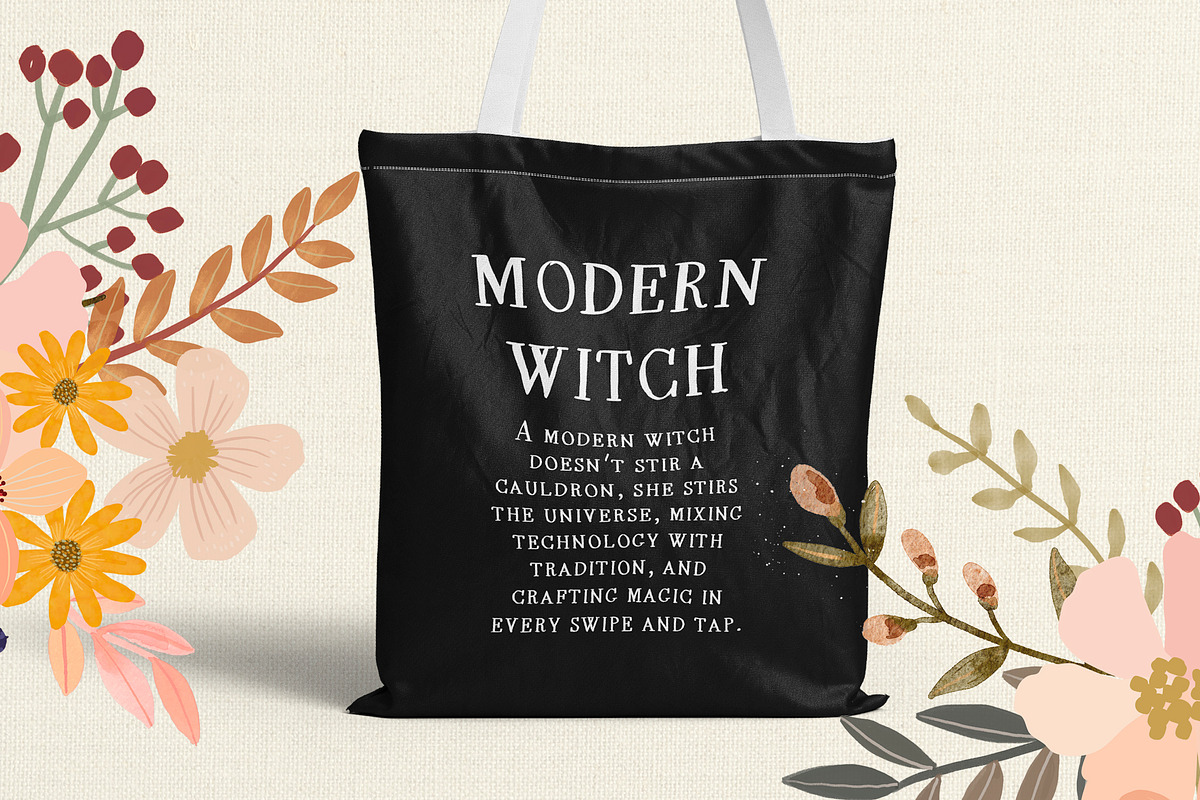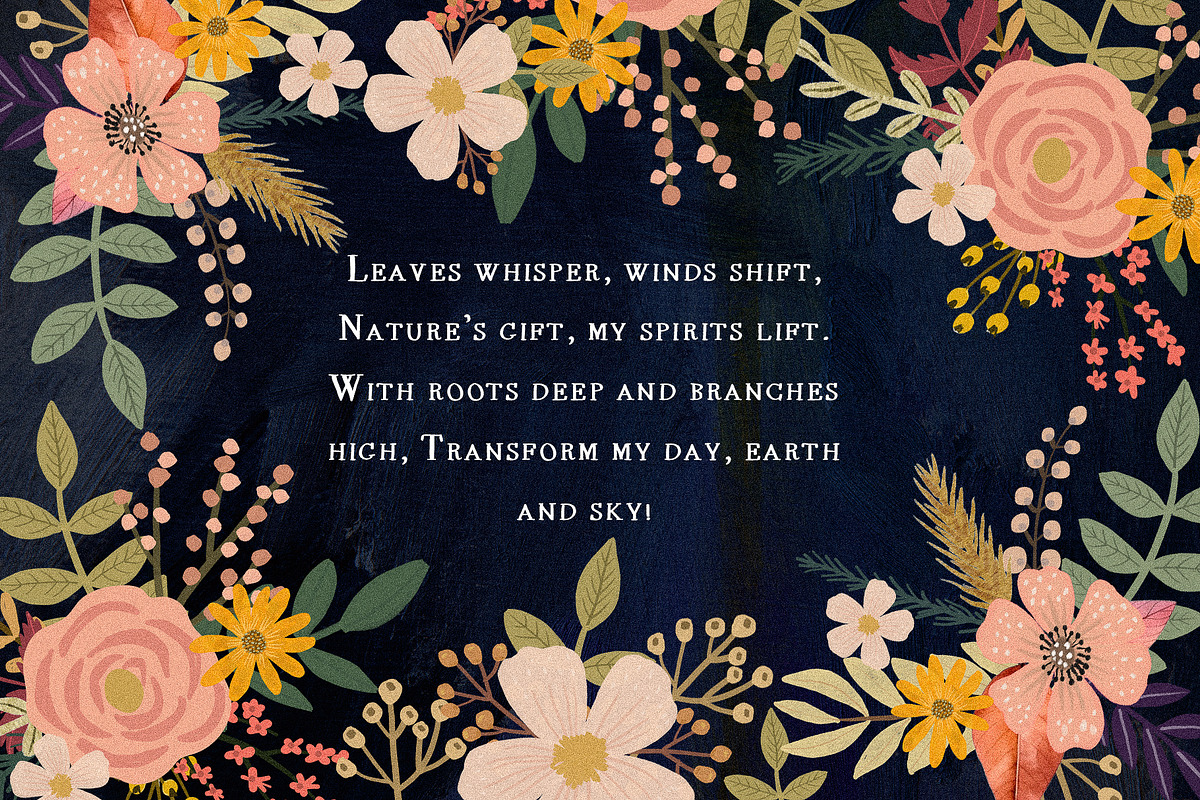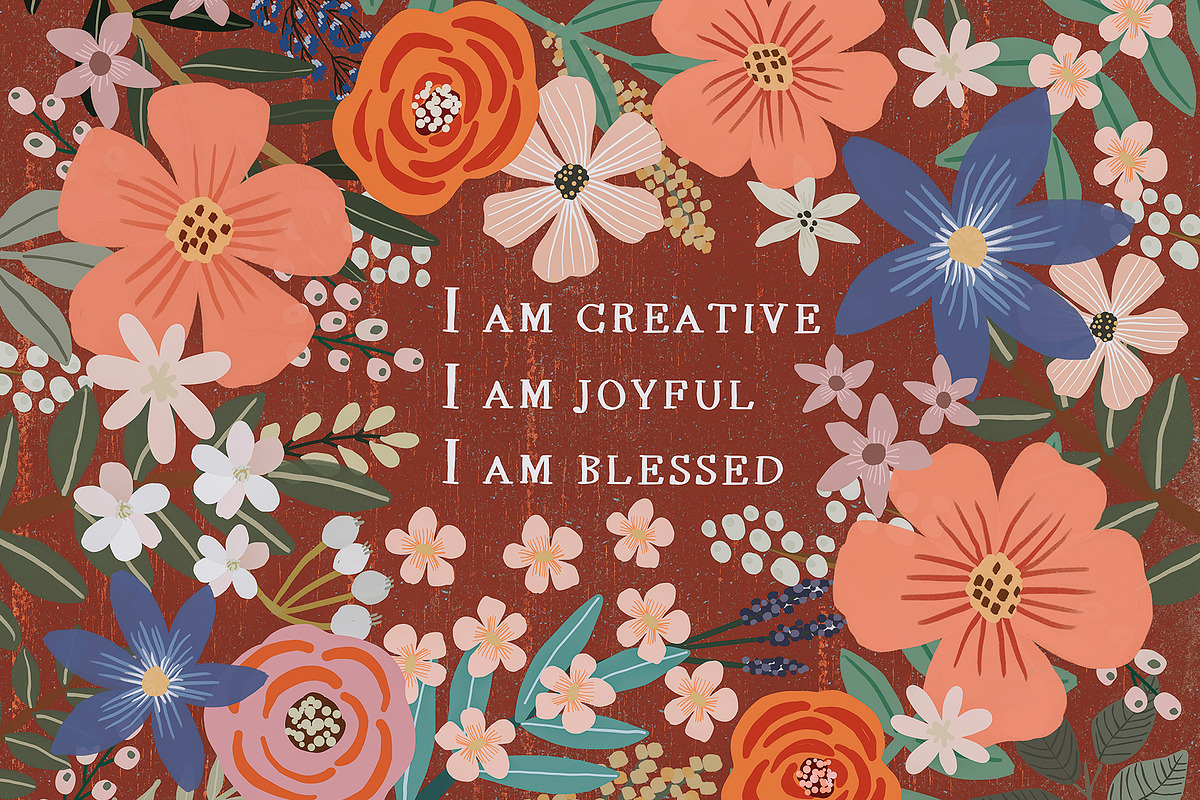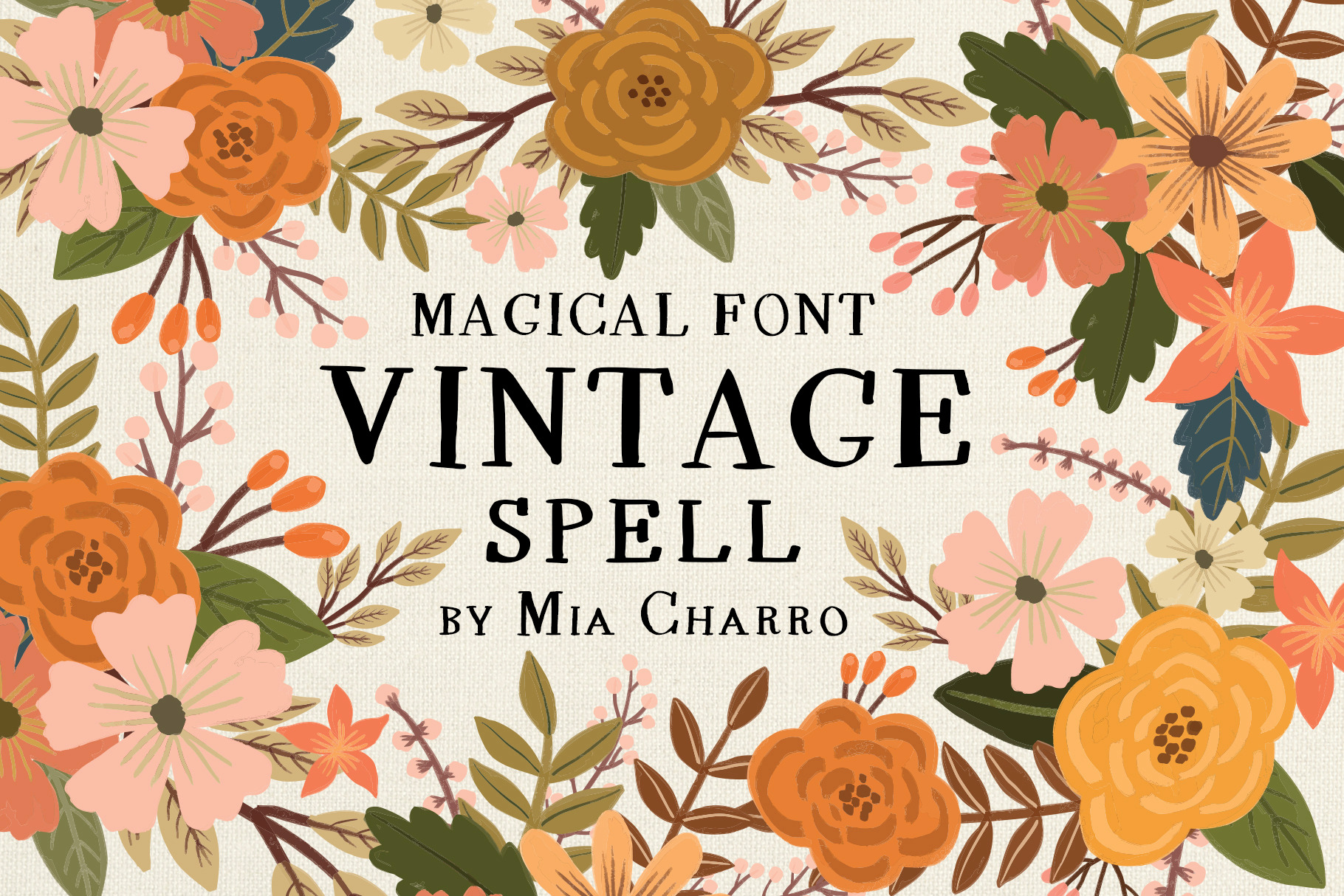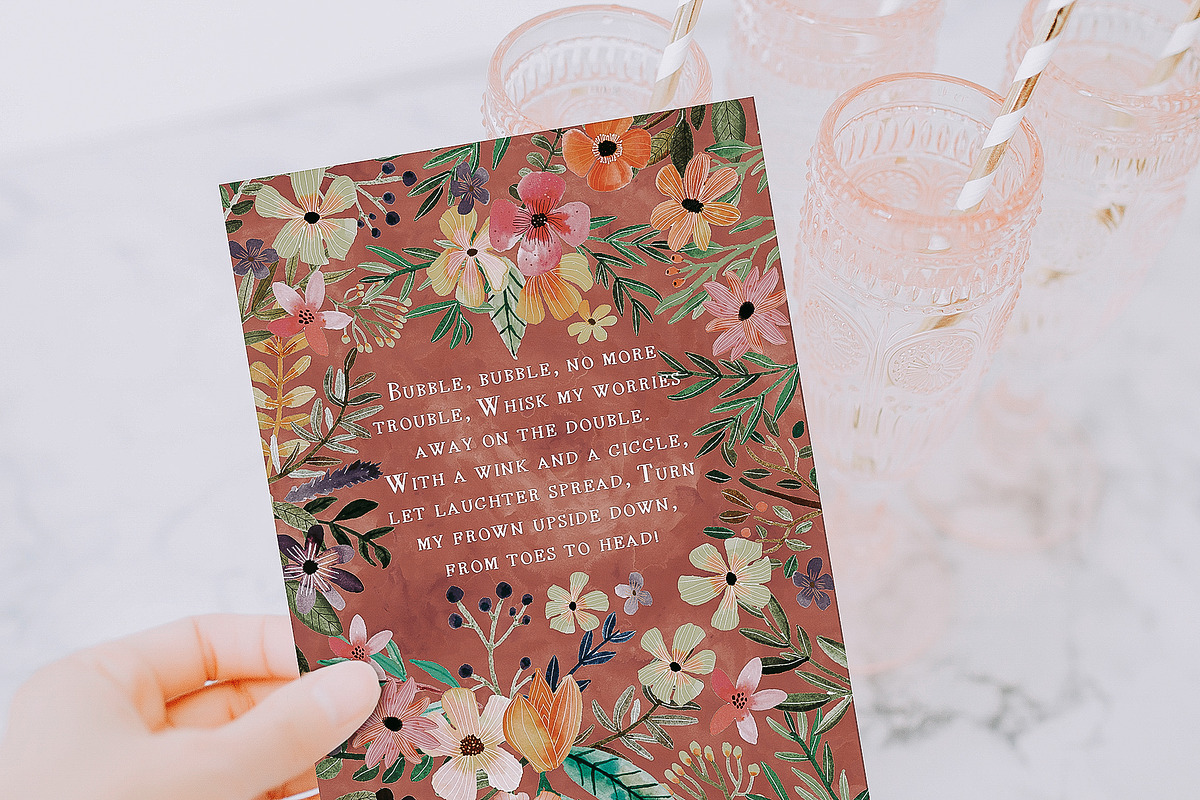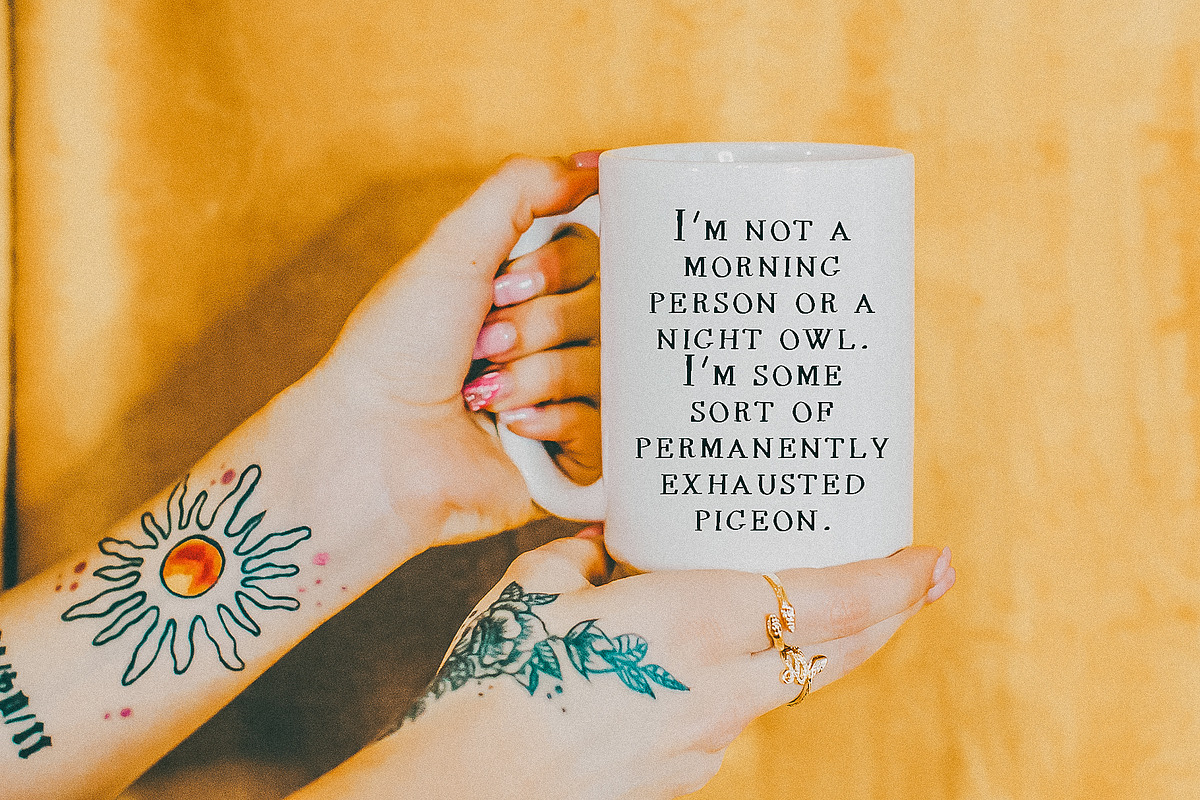
Vintage Spell Font
Introducing Vintage Spell, a font that whispers tales of yesteryears with a touch of nature's own script.
Crafted to bridge the gap between classic charm and organic elegance, this typeface wraps each letter in a timeless embrace.
With its subtle imperfections and earthy undertones, Vintage Spell is perfect for those seeking to infuse their projects with a sense of nostalgia and a breath of natural beauty.
Ideal for boutique branding, wedding invitations, and artisanal product packaging, Vintage Spell turns every word into a piece of art, resonating with the heartbeats of the past and the whispers of the wild.